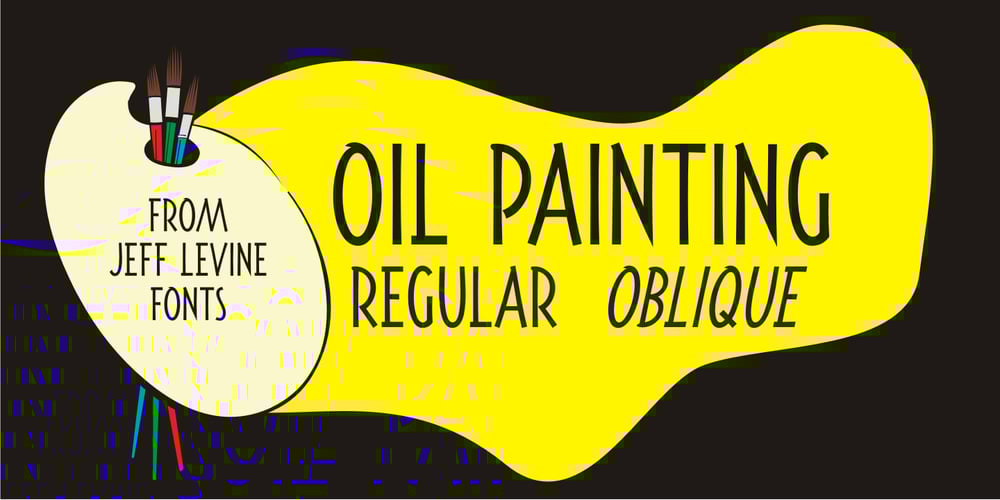
Oil Painting JNL Font Family was designed by Jeff Levine and published by Jeff Levine. Oil Painting JNL contains 2 styles and family package options. Oil Painting JNL is a casual and condensed hand-lettered sans serif design based on a vintage WPA (Works Progress Administration) poster advertising an oil painting exhibition by renowned artists of the time.